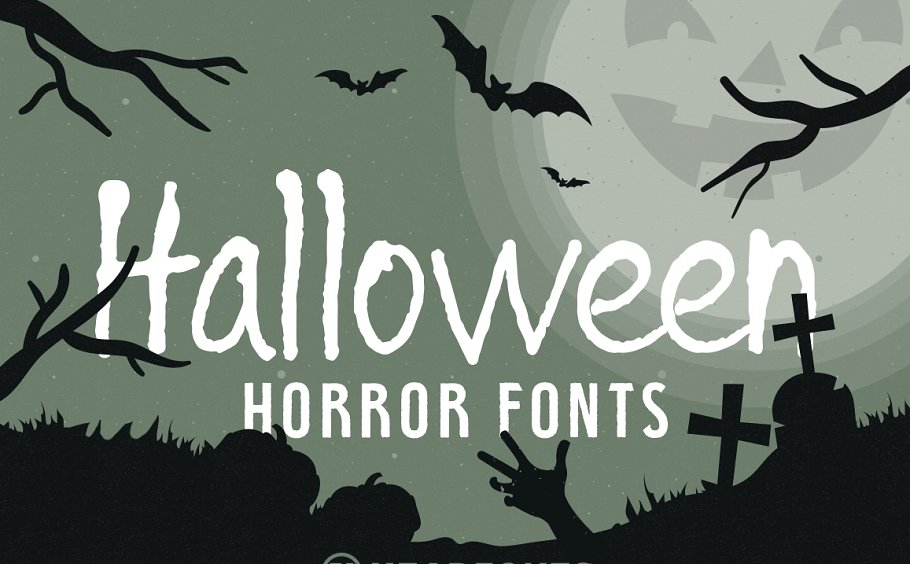
Halloween Horror Font Bundle
Unleash your creativity this spooky season with the Halloween Horror Font Bundle. This collection features a variety of unique and chilling typefaces that are perfect for all your Halloween-themed projects. Whether you’re designing posters, invitations, or digital graphics, these fonts will add a touch of eerie elegance to your work.
• Multiple font styles including serif, sans-serif, and decorative
• Various weights to suit different design needs
The bundle includes a selection of fonts that capture the essence of Halloween, featuring sharp edges, spooky curves, and playful designs. Each font is crafted to ensure readability while maintaining a haunting aesthetic.
• Ideal for Halloween invitations, party flyers, and themed merchandise
• Great for web graphics and digital content
• Use in branding projects that require a spooky touch